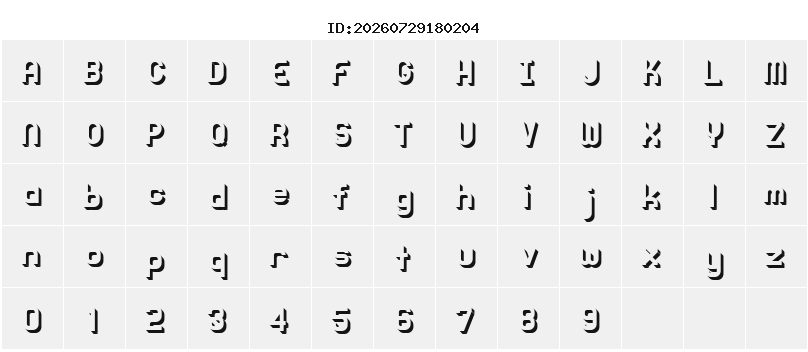
• Font Name: Knochen 3D Shade
• Designer: Hayd
• Manufacturer: Haydster
About Knochen 3D Shade.ttf
Knochen 3D Shade.ttf is a modern, elegant sans-serif font designed for ultimate readability and visual harmony. Perfect for branding, headlines, web design, and print materials.